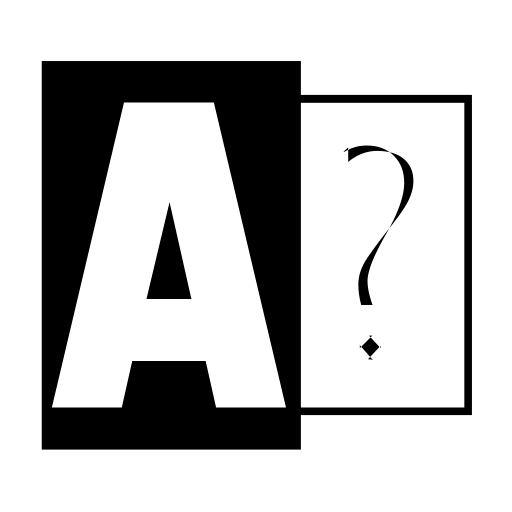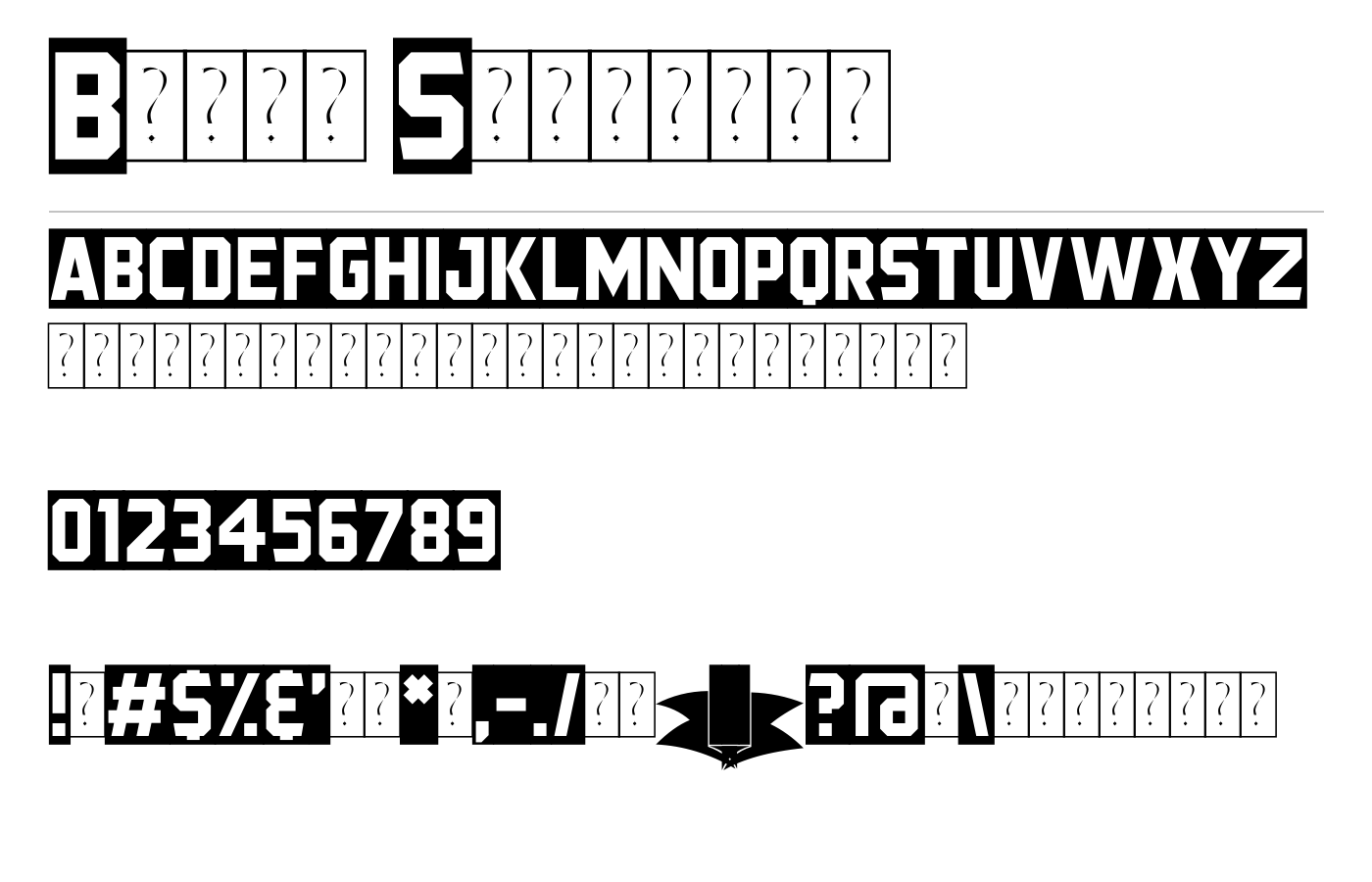
Black Streamer is a bold, geometric sans serif font characterized by its blocky, angular letterforms and high contrast between thick strokes and sharp edges. Its condensed width and strong, uniform weight give it a striking, modern appearance that works well for impactful headlines, logos, and sports or urban-themed designs. This font's sturdy, no-nonsense style makes it perfect for projects needing a bold, confident statement.
Black Streamer Font
About Black Streamer Font